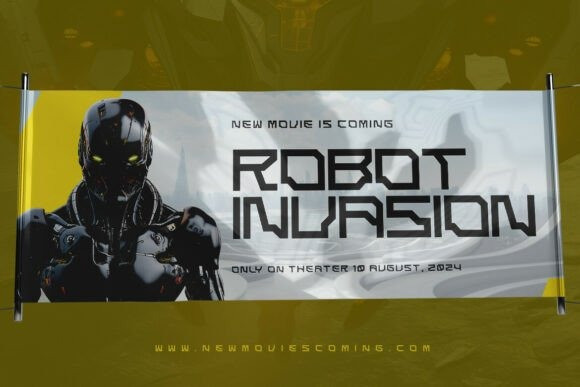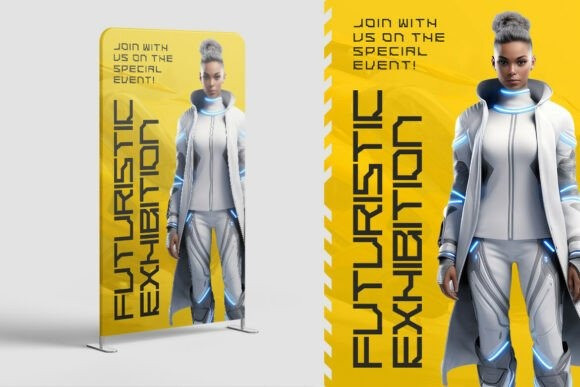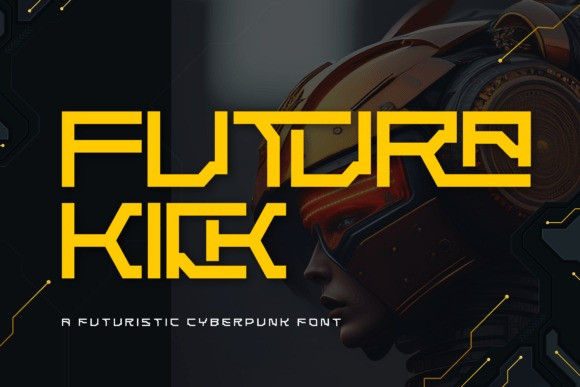
Futurakick Futuristic Font
Futurakick Futuristic Font is a bold, modern typeface designed to transport your projects into a futuristic, cyberpunk world. Inspired by science fiction, technology, and neon-lit cityscapes, this font is perfect for creators who want to make a statement.
Crafted with sharp angles, geometric forms, and a strong presence, Futurakick is ideal for:
– Game titles and interfaces: Create an immersive sci-fi or cyberpunk gaming experience.
– Movie posters and trailers: Design a compelling visual identity for futuristic films.
– Logo design: Build a memorable brand with a technological edge.
– Album art: Give your music a futuristic and edgy vibe.
– Social media graphics and banners: Stand out with powerful, eye-catching visuals.
Futurakick includes a full set of uppercase, lowercase, and numeric characters, along with punctuation, multilingual support, and ligatures. Its versatility makes it suitable for both large headlines and smaller design elements, ensuring your creative vision comes to life.
Unleash the future in your designs with Futurakick!